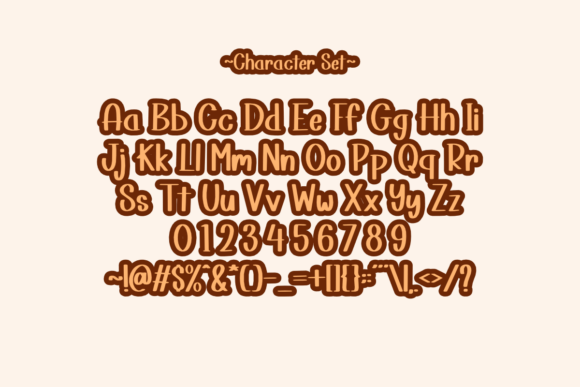
Celtic Cross Font: A Whimsical and Bold Display Font
The Celtic Cross Font is a unique and captivating typeface that embodies the essence of folklore and fantasy with a delightful twist. This charming font is designed to transport you to a world of magic and wonder, making it perfect for creative logos, playful branding, or enchanting storybook titles.
Key Features of Celtic Cross Font
- Whimsical and Bold Design: The Celtic Cross Font boasts a bold and whimsical design that is sure to capture attention. Its outlined style and charming curves give it a distinctive look that sets it apart from other fonts.
- Celtic-Inspired Energy: The font draws inspiration from Celtic art and culture, infusing it with a unique energy that is both mystical and enchanting.
- Cute Twist: What sets the Celtic Cross Font apart is its cute twist, which gives it a playful and approachable feel. This makes it perfect for designs that require a touch of whimsy and charm.
- Outlined Style: The font’s outlined style makes it versatile and suitable for a wide range of design applications, from logos and branding to storybook titles and more.
Ideal Design Applications for Celtic Cross Font
The Celtic Cross Font is a versatile typeface that can be used in a variety of design applications. Here are some of the ideal uses for this enchanting font:
- Creative Logos: The font’s bold and whimsical design makes it perfect for creative logos that require a touch of magic and wonder.
- Playful Branding: The Celtic Cross Font is ideal for playful branding that requires a font that is both enchanting and approachable.
- Magical Storybook Titles: The font’s outlined style and charming curves make it perfect for magical storybook titles that require a touch of whimsy and charm.
- Social Media Graphics: The font’s bold and eye-catching design makes it suitable for social media graphics that require a font that can stand out.
Typography Tips for Using Celtic Cross Font
To get the most out of the Celtic Cross Font, here are some typography tips to keep in mind:
- Use it as a Display Font: The Celtic Cross Font is designed to be used as a display font, so use it sparingly to make a bold statement.
- Experiment with Colors: The font’s outlined style makes it versatile, so experiment with different colors to find the perfect combination for your design.
- Pair it with Other Fonts: The Celtic Cross Font can be paired with other fonts to create a unique and visually appealing design.
Font Pairing Suggestions for Celtic Cross Font
Here are some font pairing suggestions that work well with the Celtic Cross Font:
- Open Sans: This clean and modern font pairs well with the Celtic Cross Font, creating a nice contrast between the two.
- Lato: This elegant and refined font pairs well with the Celtic Cross Font, adding a touch of sophistication to your design.
- Merriweather: This classic and elegant font pairs well with the Celtic Cross Font, creating a nice balance between the two.
The Celtic Cross Font is a unique and captivating typeface that embodies the essence of folklore and fantasy with a delightful twist. Its charming curves and outlined style make it ideal for creative logos, playful branding, or magical storybook titles. With its Celtic-inspired energy and cheerful flair, this font is both enchanting and approachable.